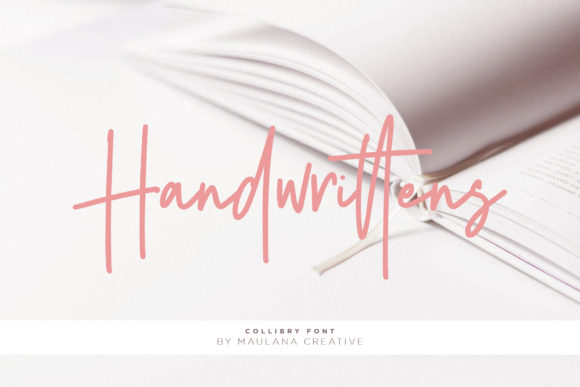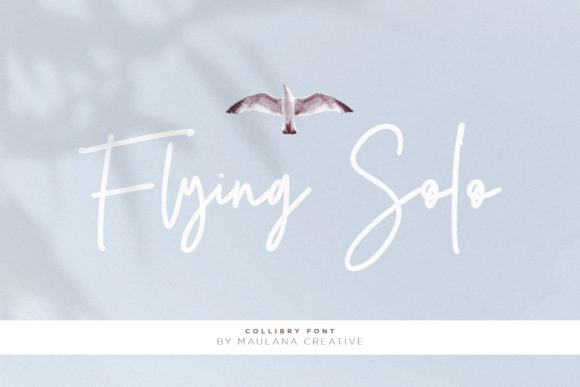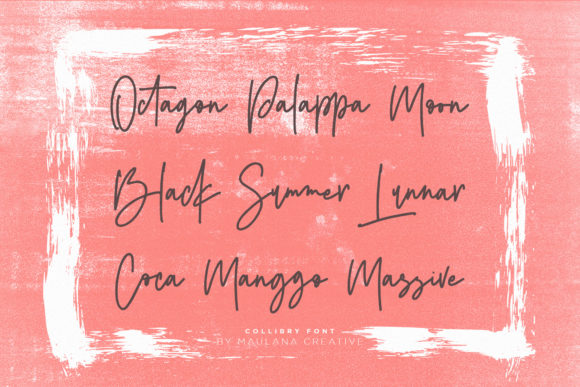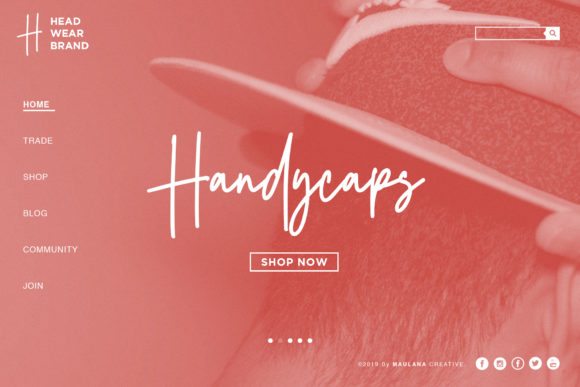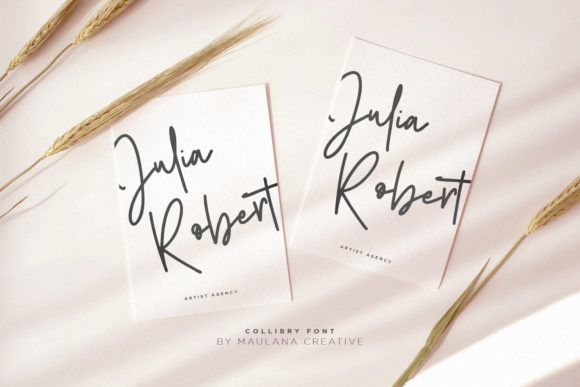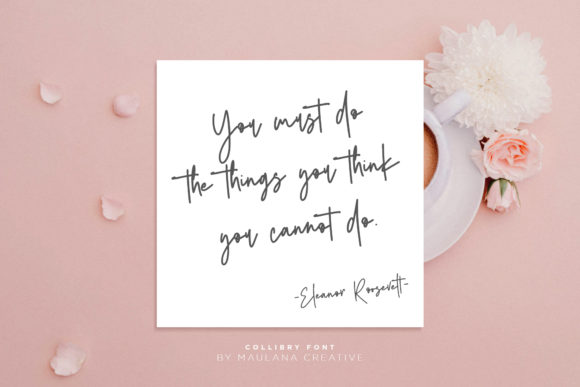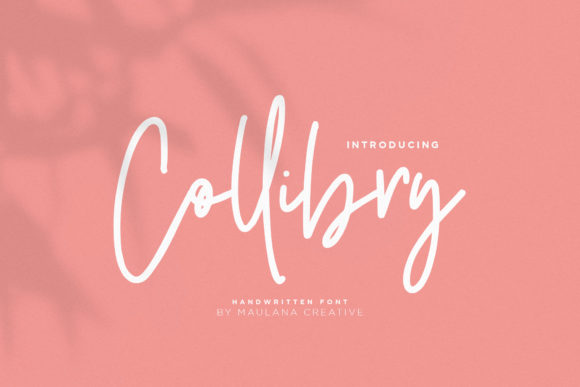
Introducing Collibry Font: The Perfect Handmade and Organic Choice for Your Designs
Are you tired of using the same old fonts in your designs? Do you want to add a touch of handmade and organic feel to your creations? Look no further than Collibry Font. This beautiful font is designed to give your designs a unique and personal touch, making them stand out from the crowd.
What is Collibry Font?
Collibry Font is a carefully crafted font that is designed to mimic the imperfections and uniqueness of handwritten text. With its organic and handmade feel, this font is perfect for designers and crafters who want to add a personal touch to their designs. Whether you’re creating a logo, a label, or a social media graphic, Collibry Font is the perfect choice.
The Characteristics of Collibry Font
So, what makes Collibry Font so special? Here are just a few of its key characteristics:
• Handwritten feel: Collibry Font has a beautiful, handwritten feel that is perfect for adding a personal touch to your designs.
• Organic and imperfect: Unlike traditional fonts, Collibry Font has a deliberately imperfect and organic feel that makes it look like it was written by hand.
• Unique and distinctive: With its unique character set and imperfections, Collibry Font is sure to make your designs stand out from the crowd.
• Versatile: Collibry Font is perfect for a wide range of design applications, from logos and labels to social media graphics and more.
Why Choose Collibry Font?
So, why should you choose Collibry Font for your designs? Here are just a few reasons:
• Add a personal touch: With Collibry Font, you can add a personal touch to your designs that will make them stand out from the crowd.
• Create a unique brand identity: If you’re looking to create a unique brand identity, Collibry Font is the perfect choice. Its handmade and organic feel will help you to create a brand that is truly one-of-a-kind.
• Perfect for crafters and small business owners: Collibry Font is perfect for crafters and small business owners who want to add a personal touch to their designs.
Tips and Tricks for Using Collibry Font
Here are a few tips and tricks for using Collibry Font:
• Use it for headings and titles: Collibry Font is perfect for headings and titles, where its handmade and organic feel can really shine.
• Experiment with different colors: Collibry Font looks great in a wide range of colors, so don’t be afraid to experiment and find the perfect color for your design.
• Pair it with other fonts: Collibry Font can be paired with other fonts to create a unique and interesting look.
In conclusion, Collibry Font is the perfect choice for designers and crafters who want to add a handmade and organic feel to their designs. With its unique character set and imperfections, Collibry Font is sure to make your designs stand out from the crowd. So why not give it a try and see the difference it can make in your creations?